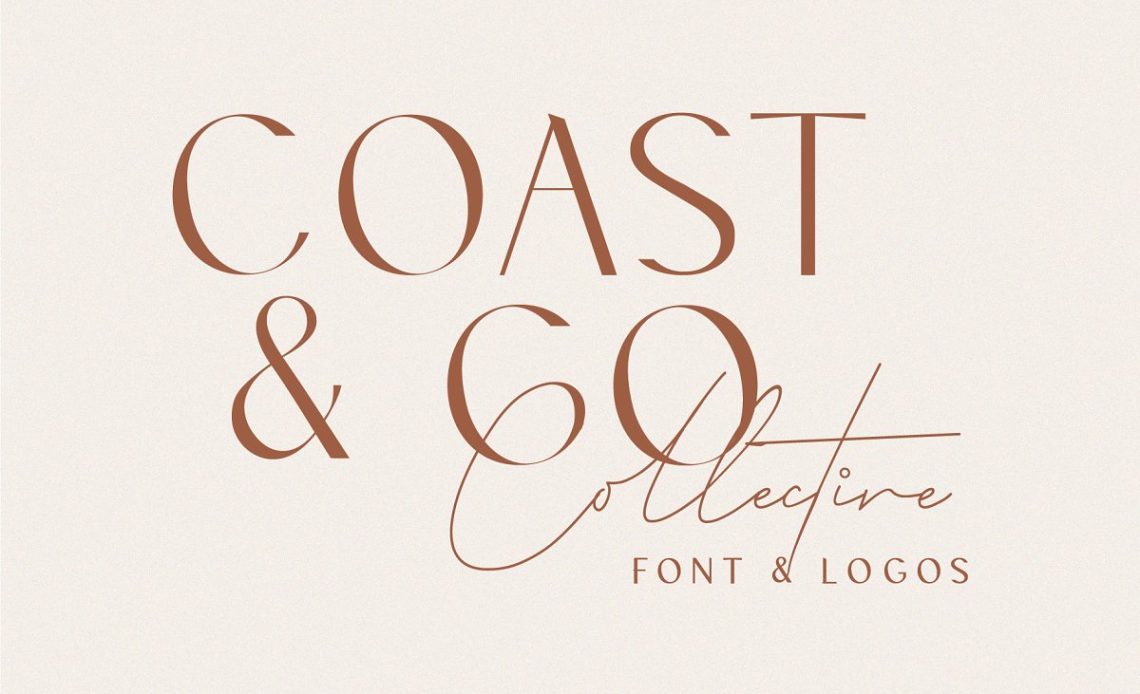
Introducing Coast & Co Font and Logos, a stunning sans serif font designed by the talented New Tropical Design Studio. This font is not just your average typeface, it's a work of art that combines the charm of old Spanish villas with a modern minimalist touch.
Coast & Co Font stands out from the crowd with its unique cut-ins and curves, making it a memorable choice for stylish logos, mastheads, and pull quotes. Whether you're a business owner looking to revamp your brand or a creative individual in need of a standout font, Coast & Co is here to elevate your design game.
What sets Coast & Co Font apart is the inclusion of four complementary logos in .Ai or .EPS files, perfectly matching the font. These logos are not just an afterthought; they are carefully crafted to enhance your brand identity. With Coast & Co Font and Logos, you have everything you need to create a cohesive and visually striking brand presence.
This versatile font family is not limited to logos alone. It pairs seamlessly with all script fonts, such as the elegant Queenstown Signature Font. The possibilities are endless when it comes to creating stunning combinations that reflect your unique style and personality.
Numbers, punctuation, and accented letters are all included, allowing you to express yourself in any language or style. Additionally, the editable logo files (.Ai and .EPS) give you the freedom to customize and tweak the included logos to perfectly align with your brand vision.